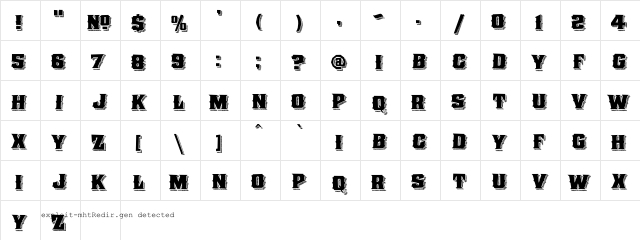
LHF Old Stock 2 Shadow Regular
| Foundry | Chuck Davis for Letterhead Fonts |
| Designer | Chuck Davis for Letterhead Fonts |
Design Context for LHF Old Stock 2 Shadow Typeface
LHF Old Stock 2 Shadow brings ornamental detail and strong personality to headlines and identities, where visual impact matters more than quiet functionality.
Font Pairing: Pair with a clean neutral sans-serif for body copy to let LHF Old Stock 2 Shadow's character lead without overwhelming the composition.
Pro Tip: Treat LHF Old Stock 2 Shadow as the centrepiece of your typographic hierarchy. One strong heading set in a decorative face can carry an entire layout.